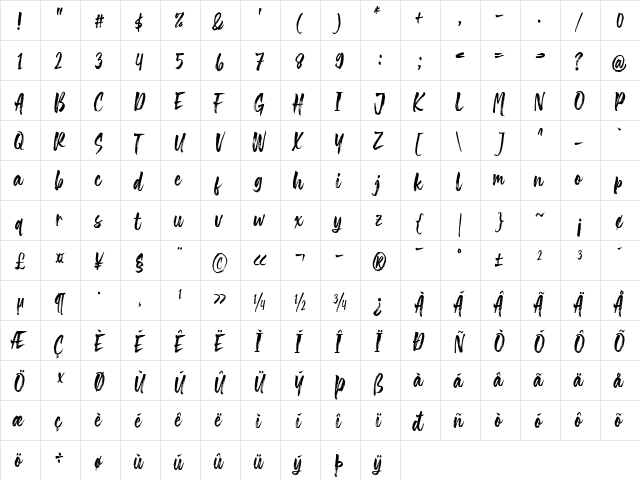
The Friday Stroke Regular
| Foundry | 7NTypes |
| Designer | Situjuh Nazara |
Design Context for The Friday Stroke Typeface
The Friday Stroke is a composed and adaptable typeface that performs quietly and consistently across a wide range of design contexts.